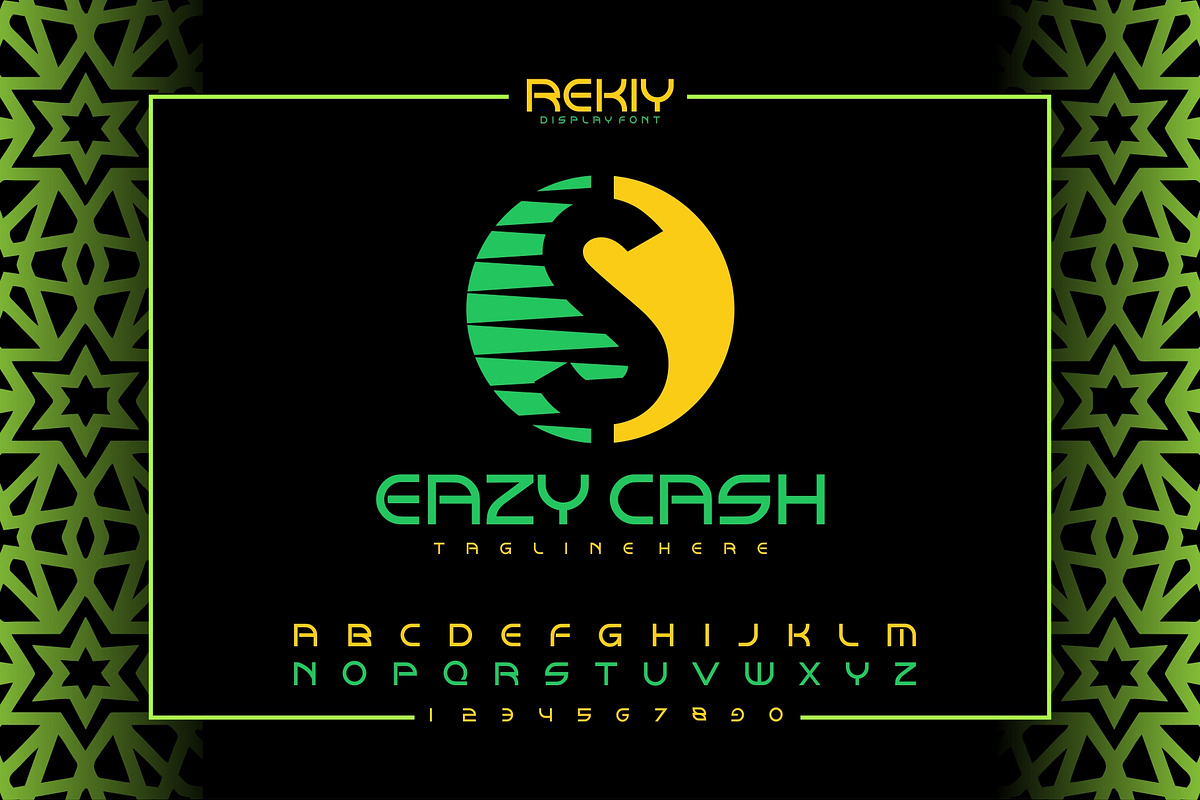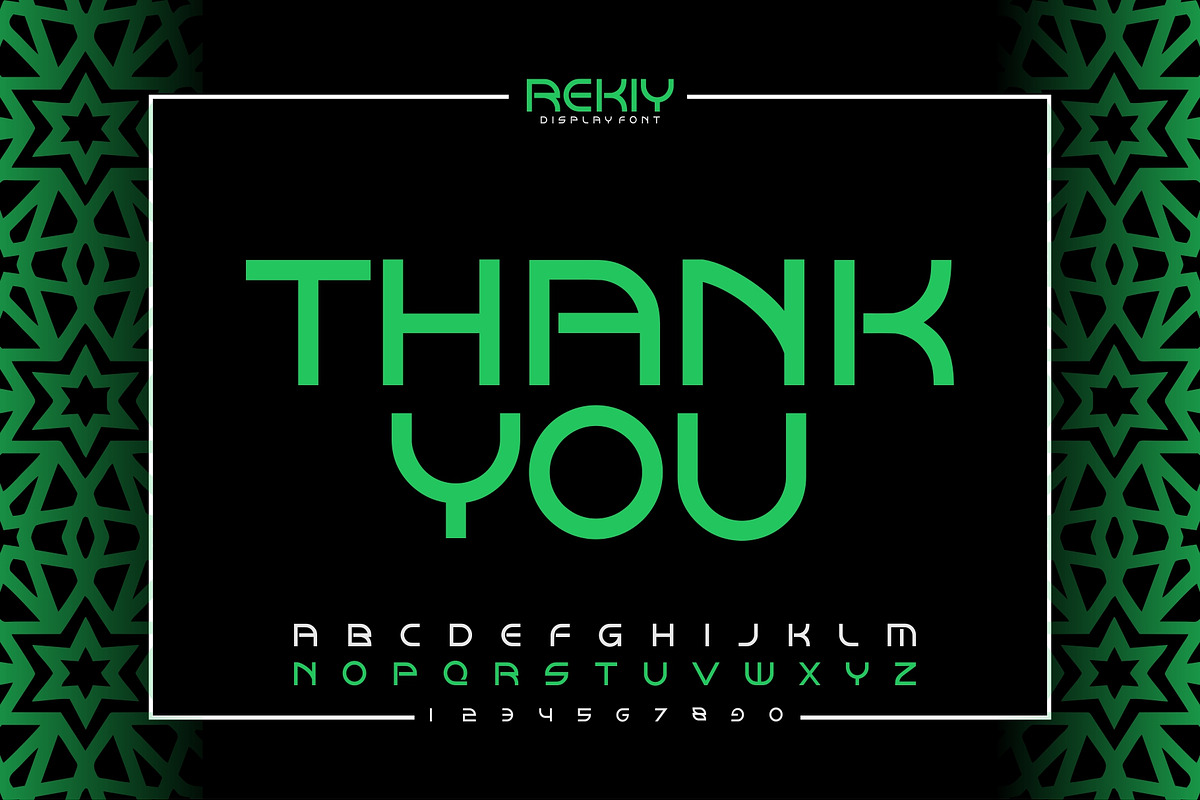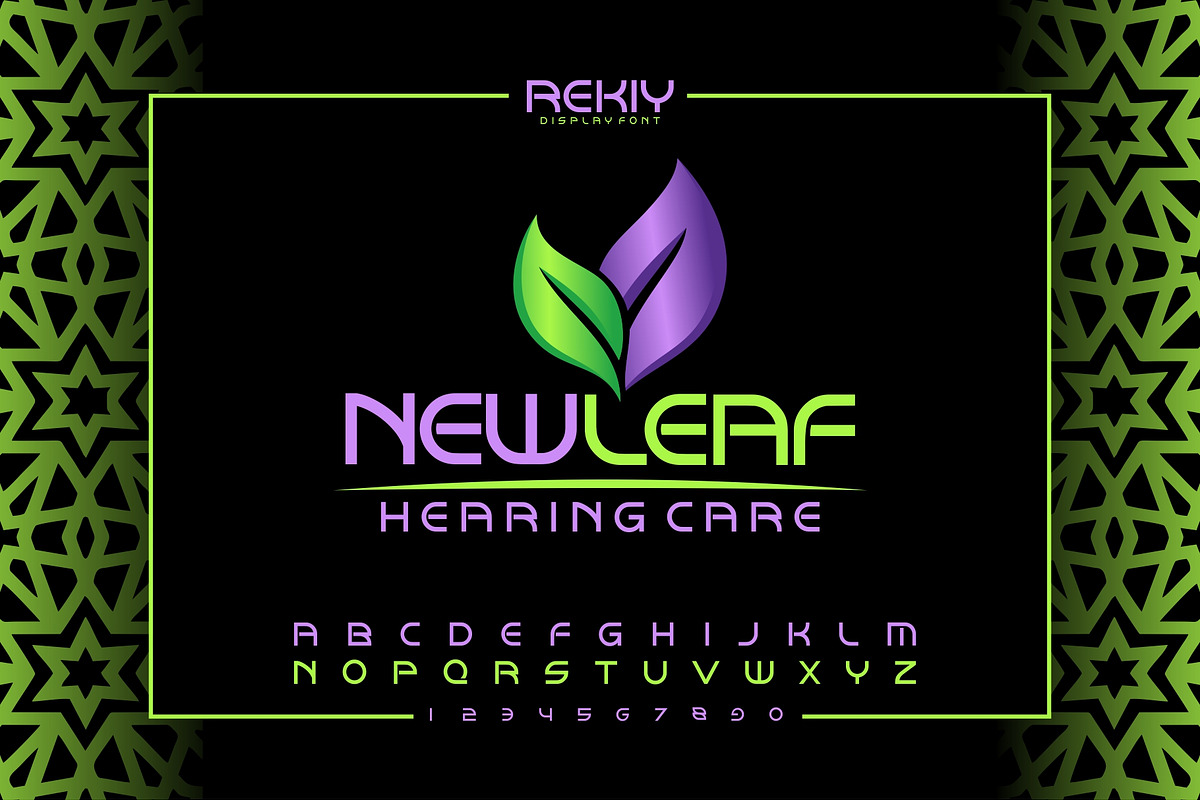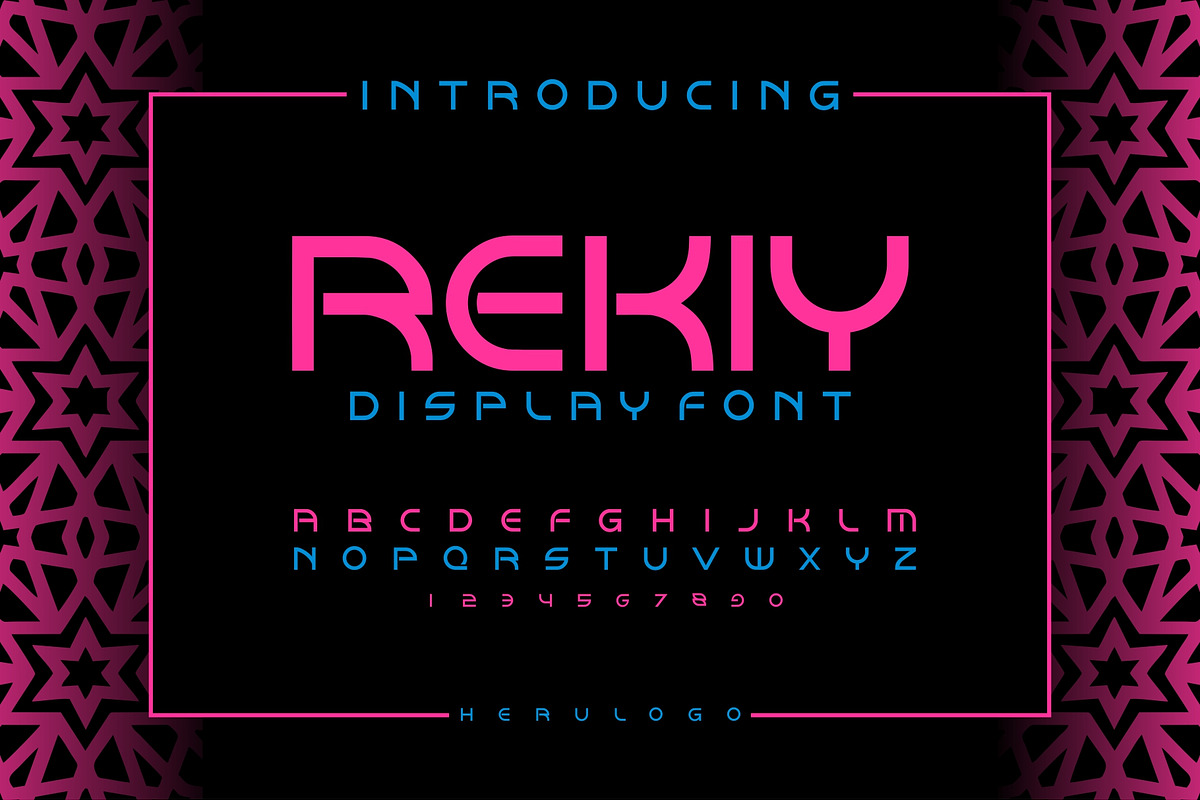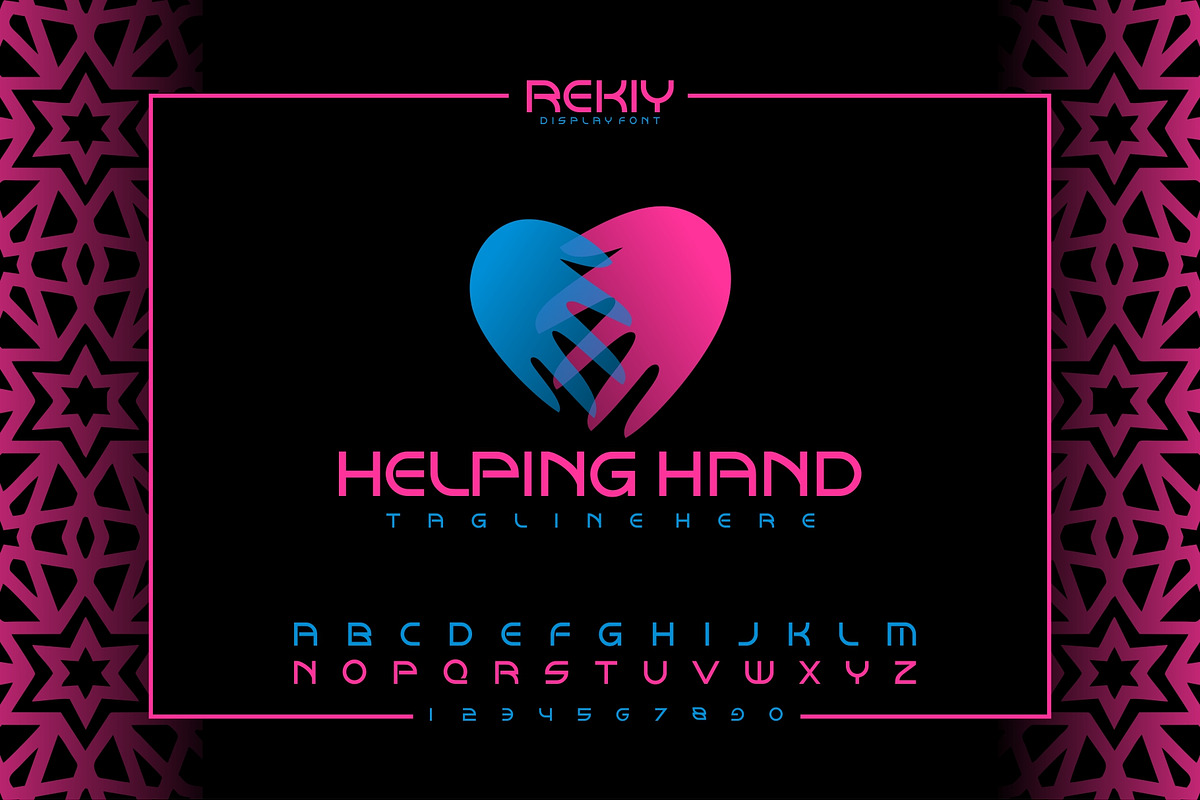
REKIY DISPLAY
Introducing a font that exudes a cutting-edge vibe, embodying sophistication and streamlining of the future – the fusion of hi-tech allure and chic minimalism. This display typeface flaunts broad dimensions, alongside unique, strategic design constructions. It's more than just a font; it’s a statement of innovation, rapidity, and exactitude. This font personifies the breakthroughs in advanced robotics, the limitless intrigue of space exploration, and the sophistication of digital user interfaces. Undeniably, this typeface encapsulates the essence of the future, projecting the image of a world advancing at a galloping pace.